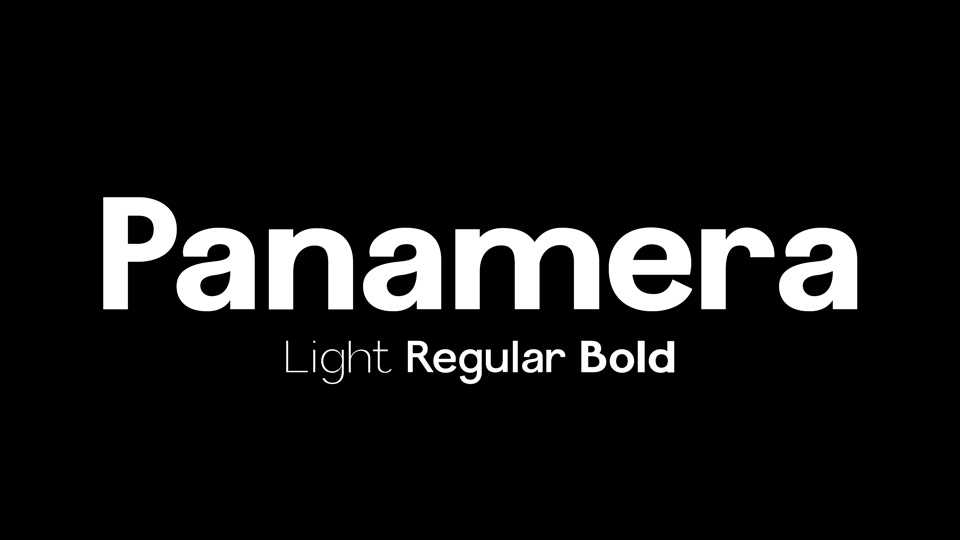
Download Panamera typeface, a modern sans serif font family in three weights. Panamera font works well both for texts and titles and can be used for a wide range of projects.
Designer: Bastien Sozeau